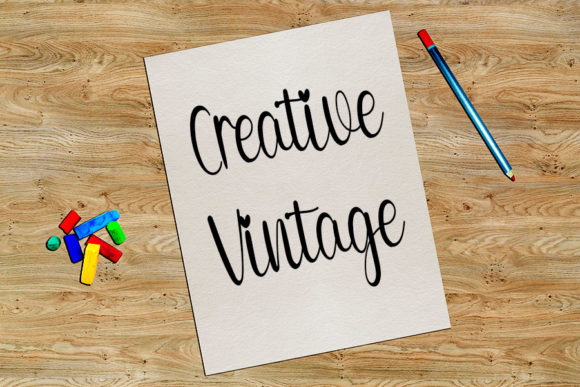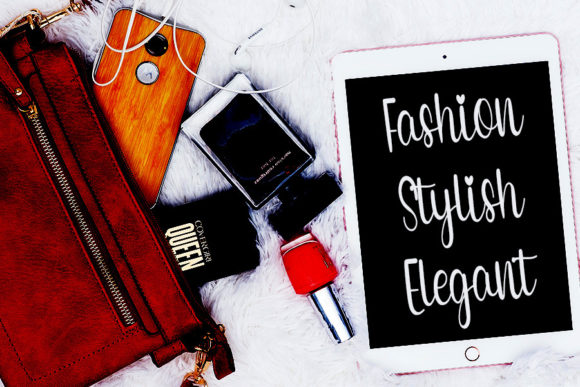
The Amsterdam Font: A Designer’s New Best Friend
I’ll never forget the time I was working on a project for a client who wanted a font that was both playful and professional. I spent hours scouring the internet for the perfect one, but nothing seemed quite right. That was until I stumbled upon the Amsterdam font. This simple yet charming handwritten font has been a game-changer for my design work, and I’m excited to share it with you.
A Personal Review: What I Love About Amsterdam Font
The Amsterdam font has quickly become a favorite of mine, and for good reason. Here are just a few things that I love about it:
- ✨ **Balanced and varied**: The font has a great balance of thick and thin lines, which gives it a lot of character and visual interest.
- ✅ **Easy to read**: Despite its playful nature, the Amsterdam font is surprisingly easy to read, even at smaller sizes.
- 💕 **Cute and charming**: This font has a certain whimsy to it that makes it perfect for projects that need a bit of personality.
While the Amsterdam font is generally a fantastic choice, there are a few things to keep in mind:
- 🤔 **Limited use in very formal contexts**: While the font is professional, it’s still quite playful. It may not be the best choice for very formal or corporate projects.
- ⚠️ **Some letters may be a bit quirky**: As with any handwritten font, some letters may have quirks or variations that don’t quite fit with traditional typography rules.
One of the best things about the Amsterdam font is its support for OpenType features and glyphs. Here are a few things you can do:
- Access stylistic alternates: Many OpenType fonts, including Amsterdam, offer stylistic alternates that can add variety to your text.
- Use ligatures: Ligatures are special character combinations that can make your text more visually interesting.
- Explore glyphs: Glyphs are special characters that can add icons, symbols, and other visual elements to your text.
The Story Behind Amsterdam Font
The Amsterdam font was designed by a team of typographers who wanted to create a font that was both beautiful and functional. Inspired by the city’s charming canals and historic architecture, they crafted a font that’s perfect for projects that need a bit of personality.
| Q: What is the Amsterdam font? | A: The Amsterdam font is a simple, handwritten font designed for use in a variety of projects. |